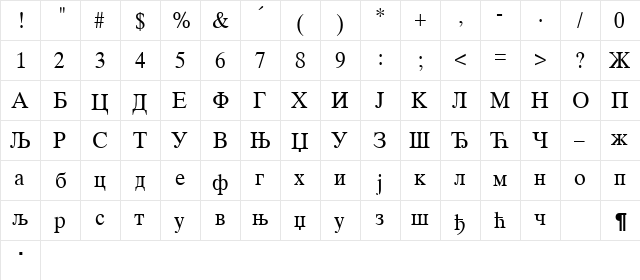
Times Cirilica Regular
Design Context for Times Cirilica Typeface
Times Cirilica is a composed and adaptable typeface that performs quietly and consistently across a wide range of design contexts.